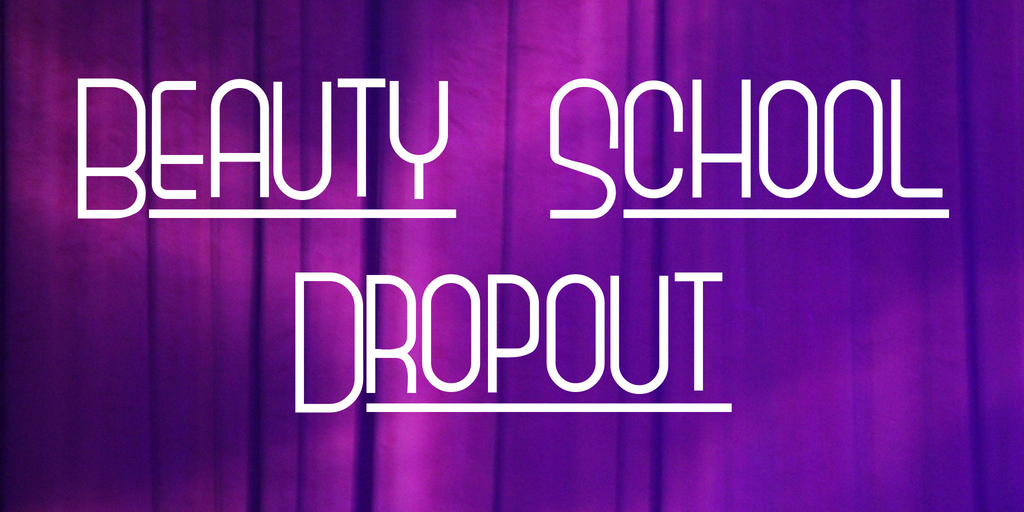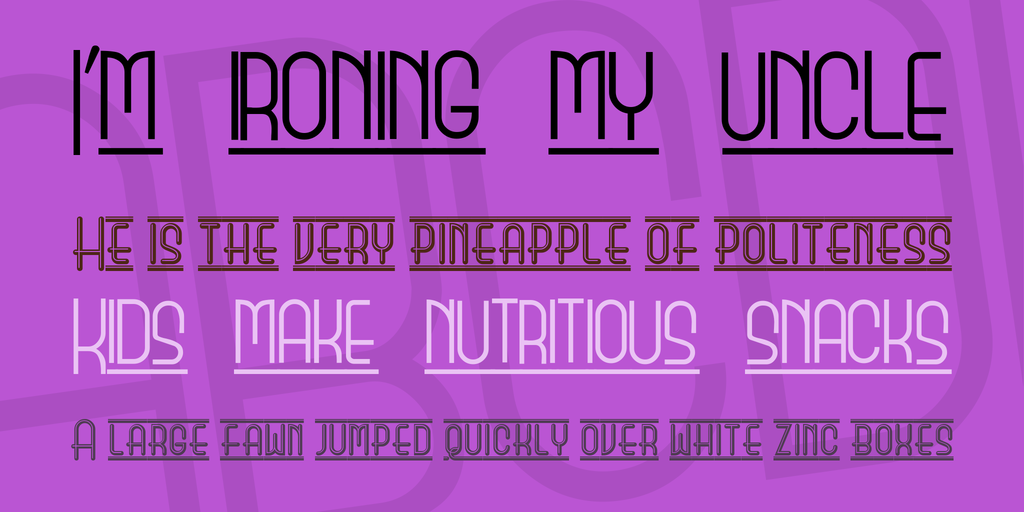
Beauty School Dropout Font Family Made by Nick Curtis
My first attempt at creating a computer font from scratch, inspired by a neon sign I saw in a beauty shop window. Shows a lot of Art Deco influence (what else is new?).